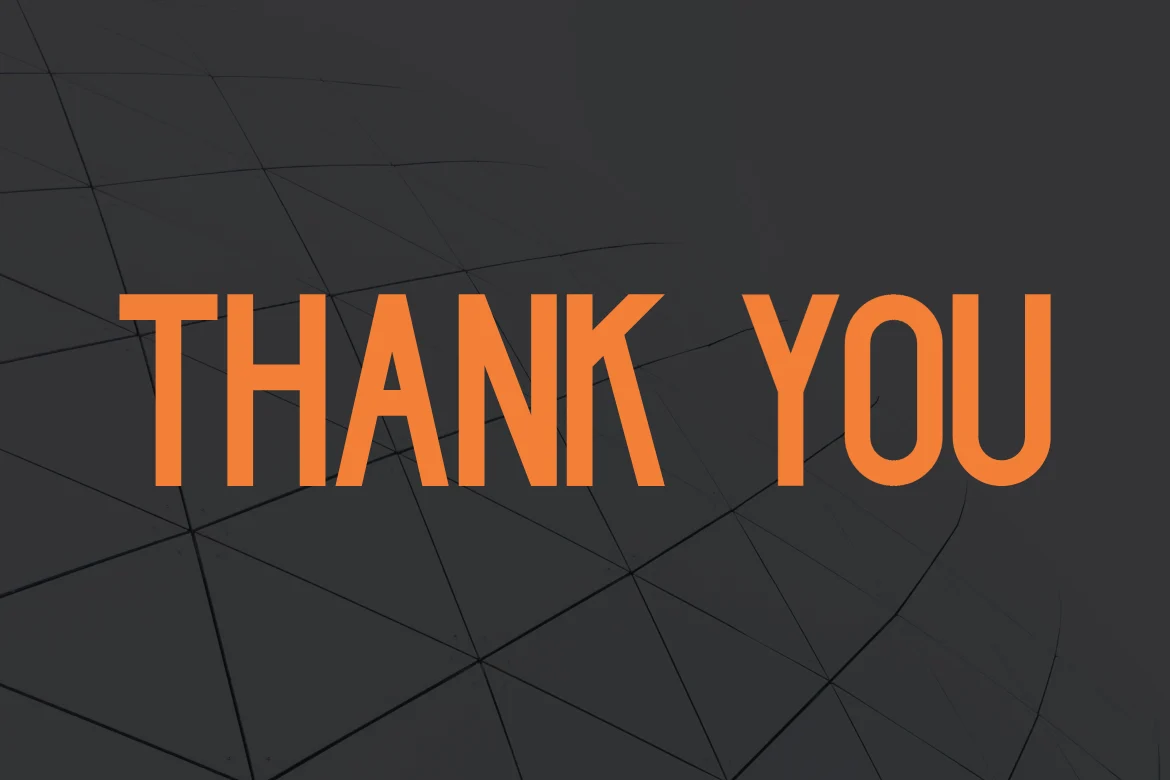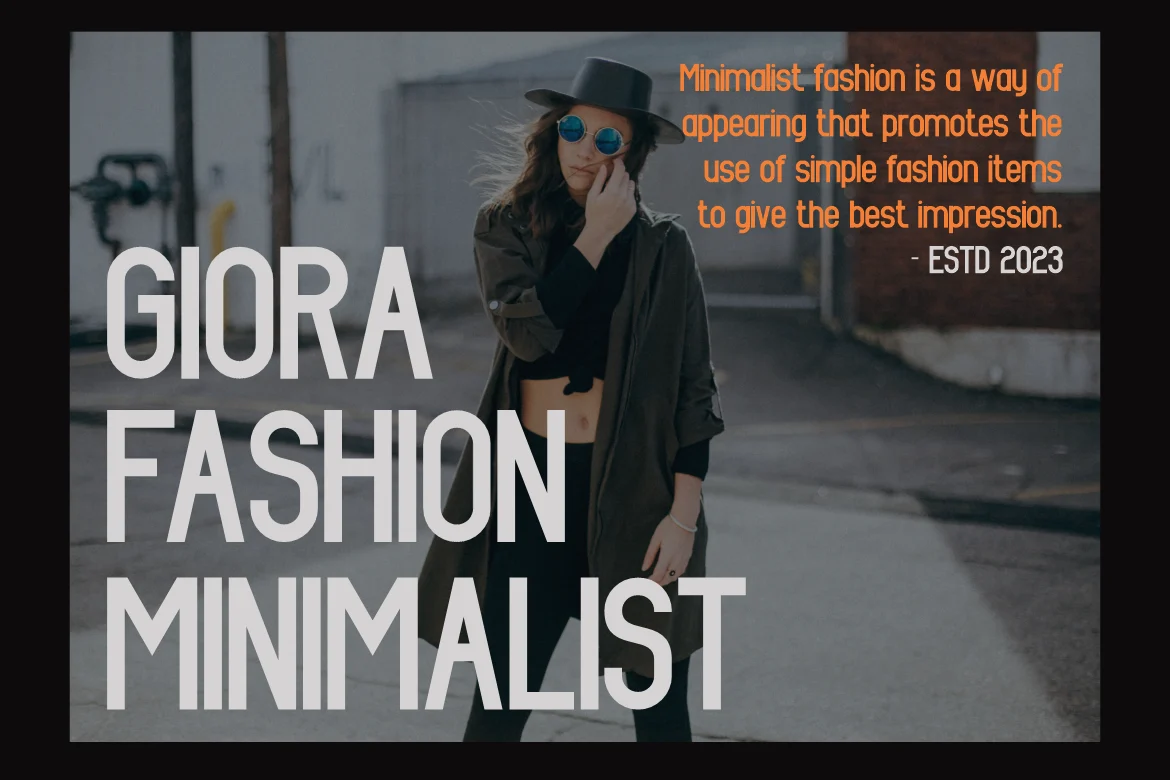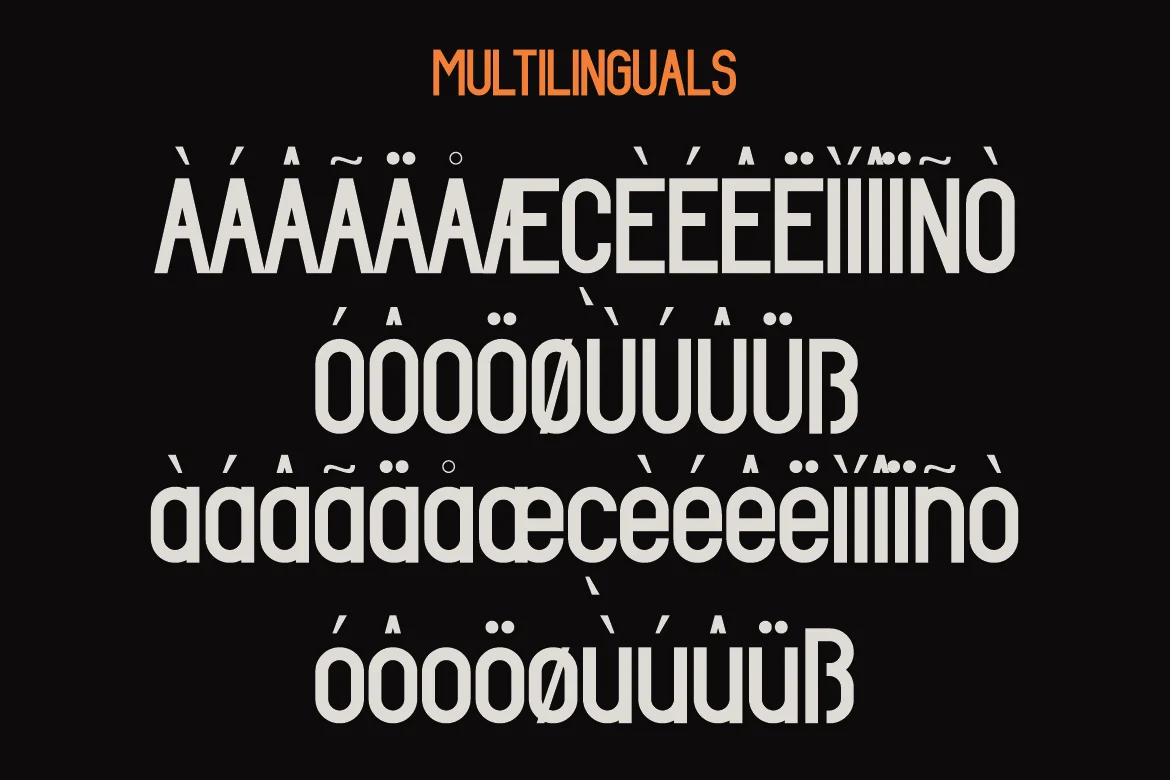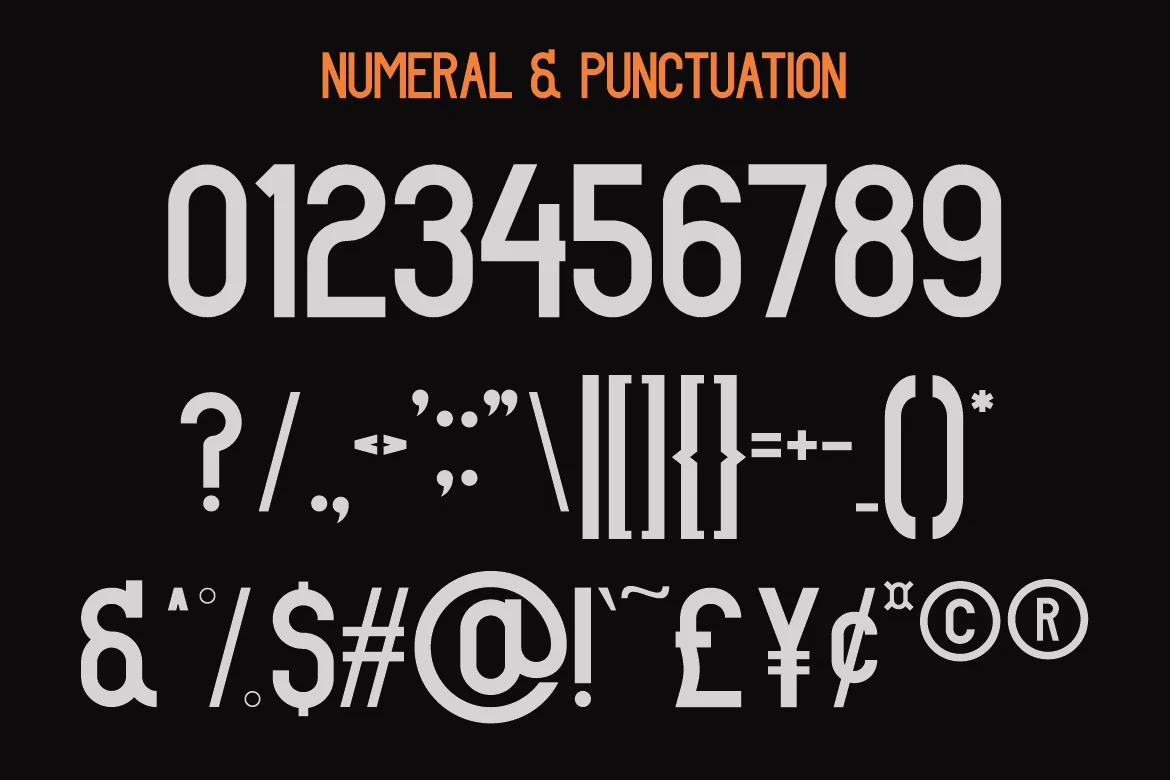
Introducing our new product Gheriof - Modern Condensed Sans
This font has the main characteristic of being narrower or slimmer compared to regular fonts. It can be used in various design contexts such as graphic design, titles, logo design, web design, posters